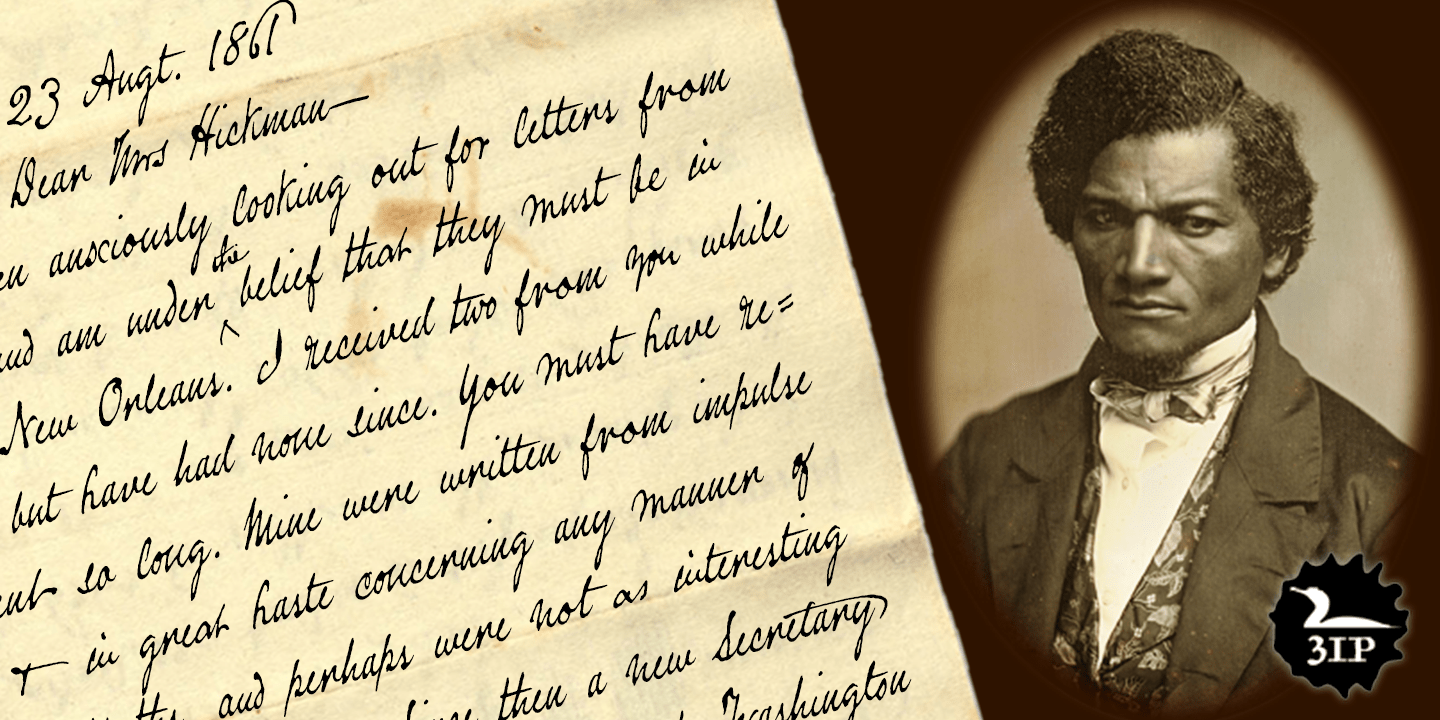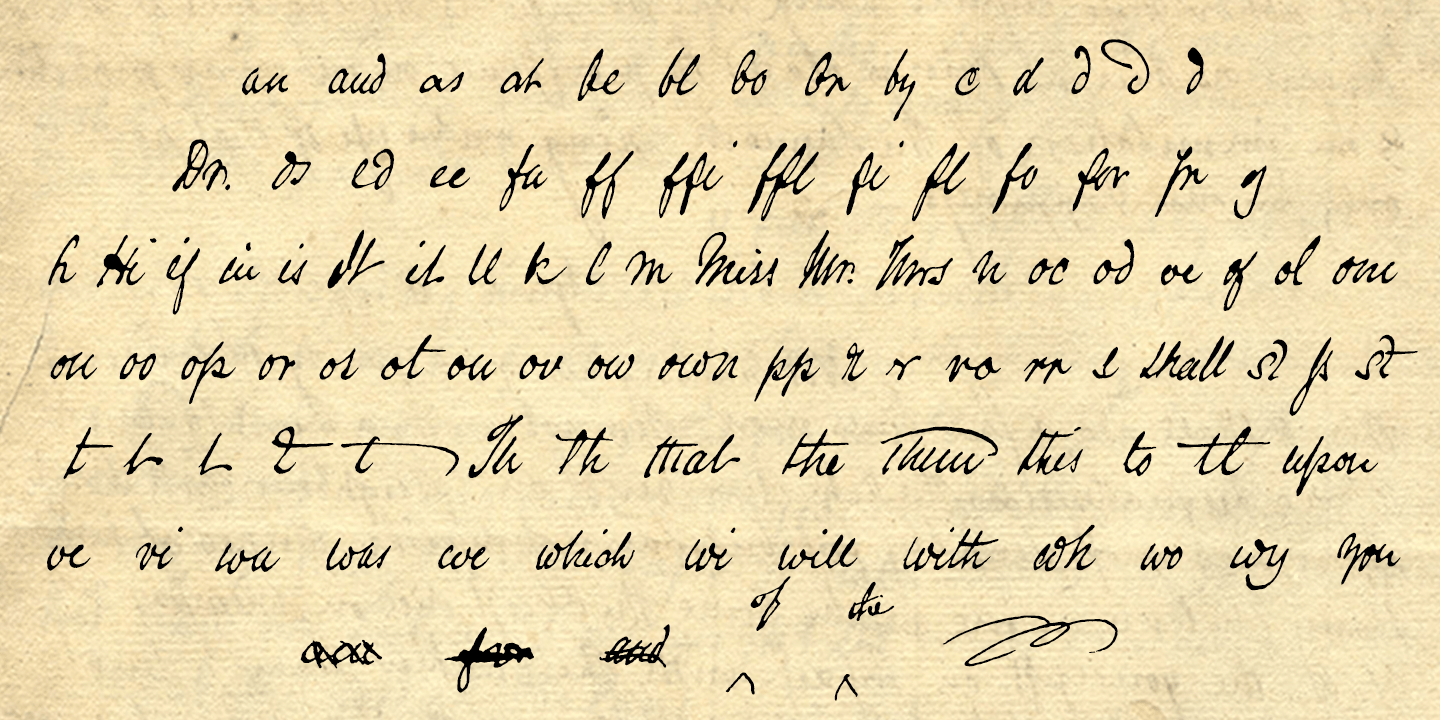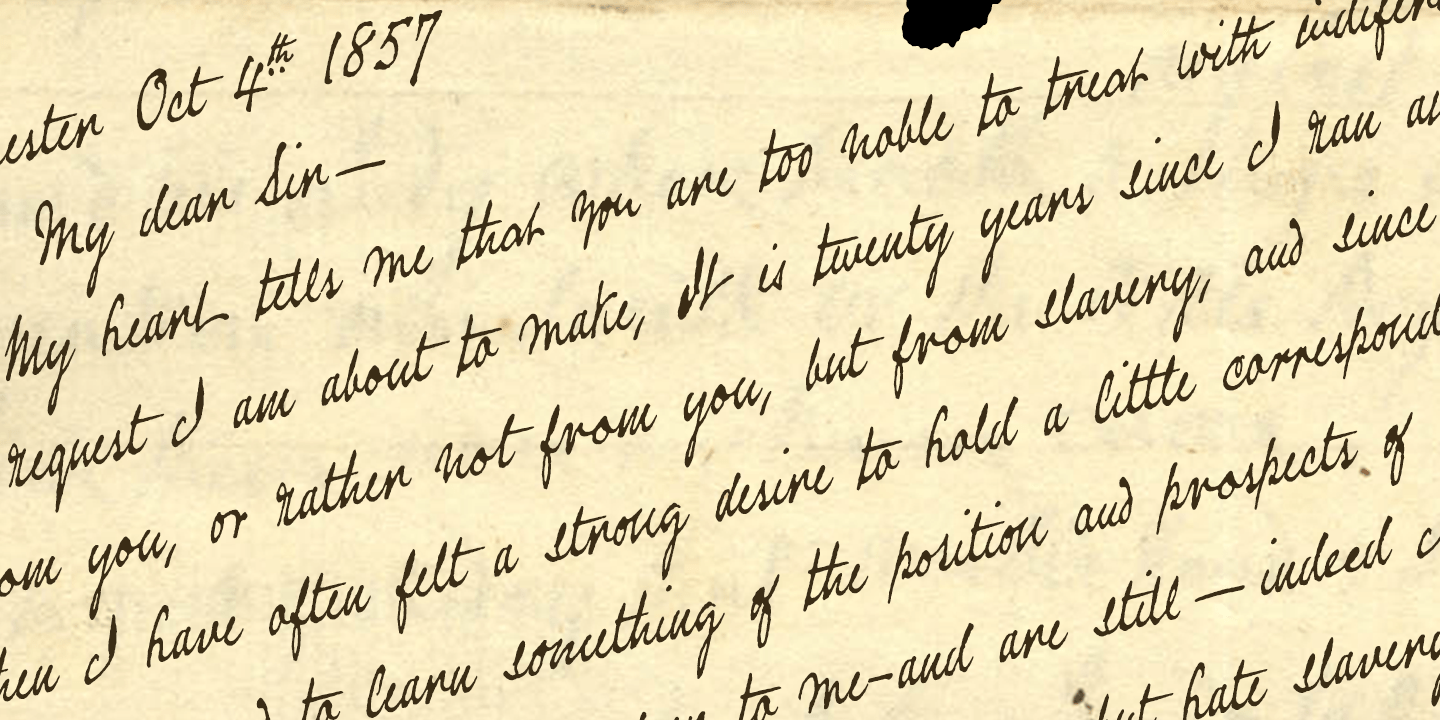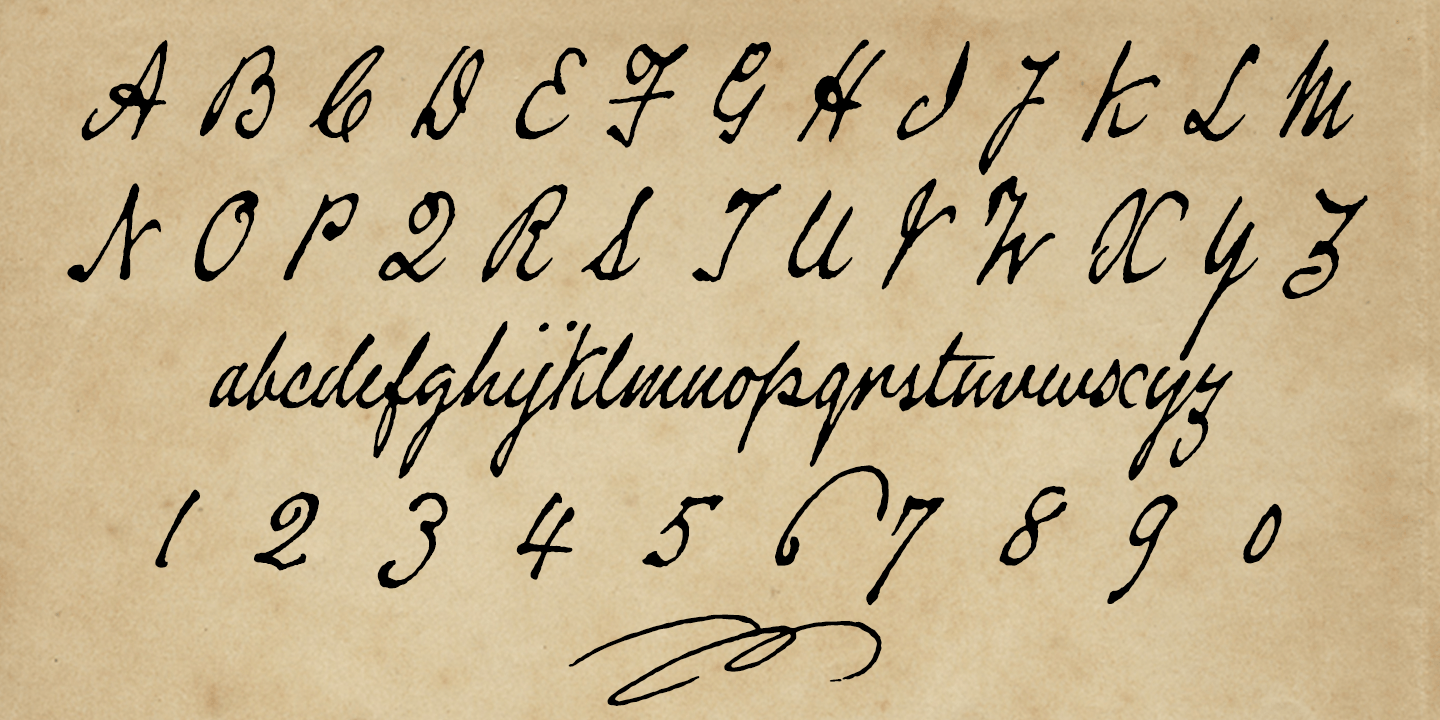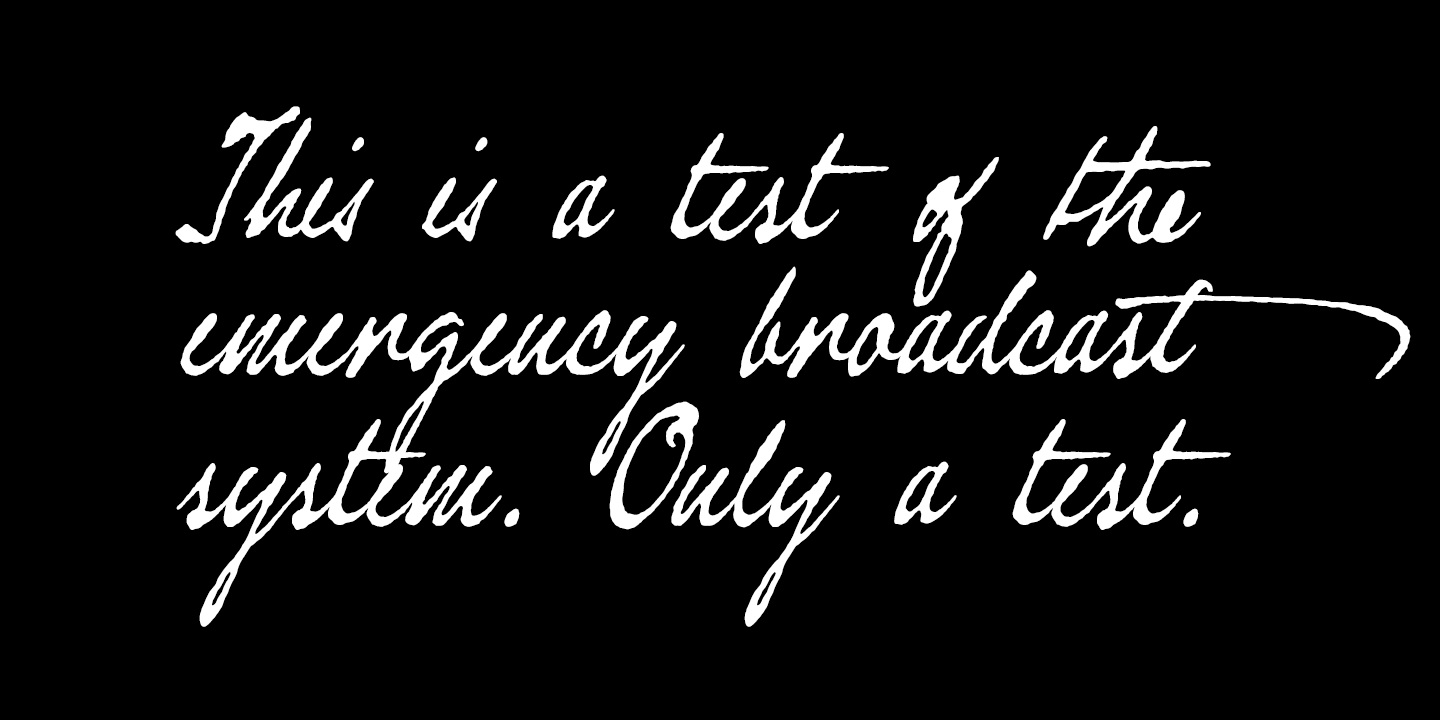
Douglass Pen
Font Family by Three Islands Press
Douglass Pen was inspired by the handwriting of Frederick Douglass, who was born an American slave but died a distinguished 19th century statesman, orator, and abolitionist leader. He also had fine penmanship. Douglass Pen is modeled chiefly after Douglass's handwritten account of John Brown's famous 1859 raid on Harpers Ferry, Virginia. It simulates his somewhat condensed cursive, dashed off in a swift, bold style.